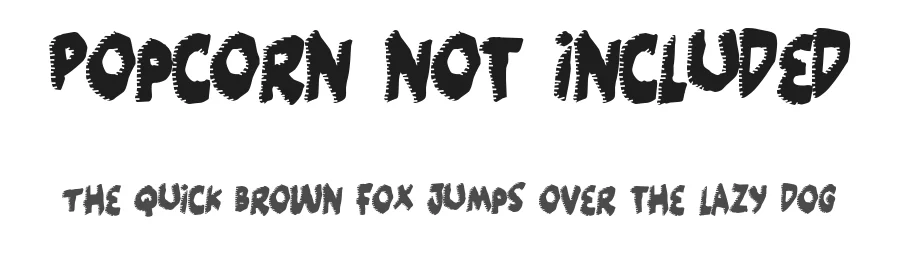
About Cutting Edge Font
CuttingEdge!
| Designer | Max Infeld |
Cutting Edge Font is a decorative font that shines as a display or heading face. Pair it with a clean sans-serif or serif font for body text β the contrast creates a clear hierarchy while the two styles stay balanced and easy to read.